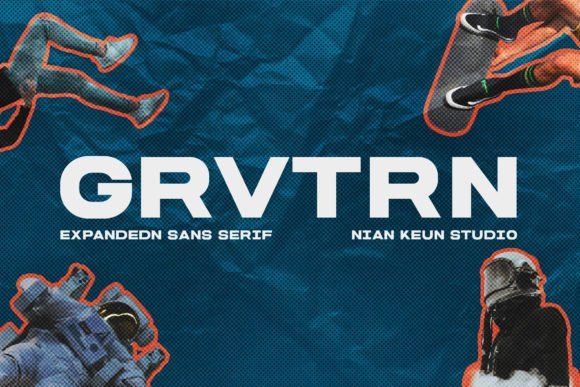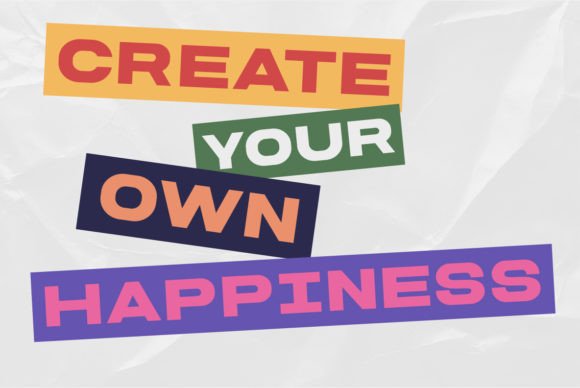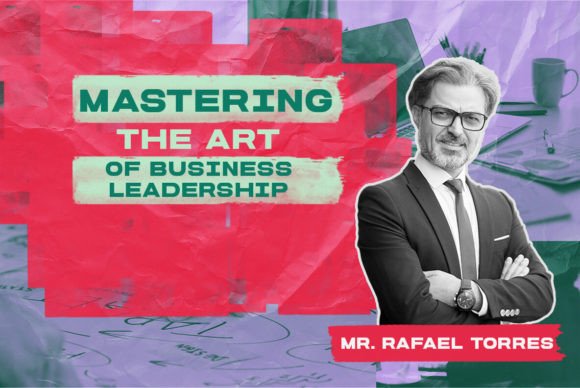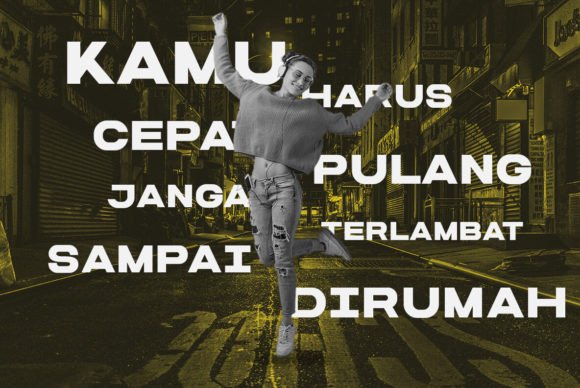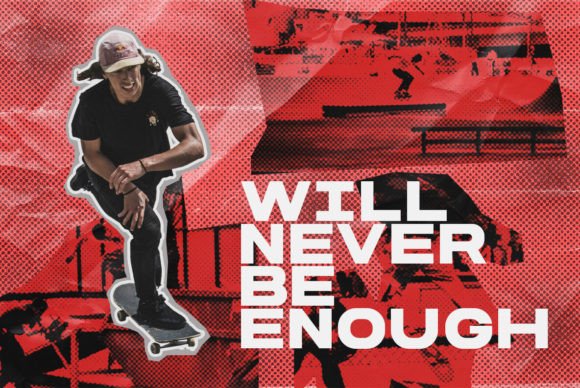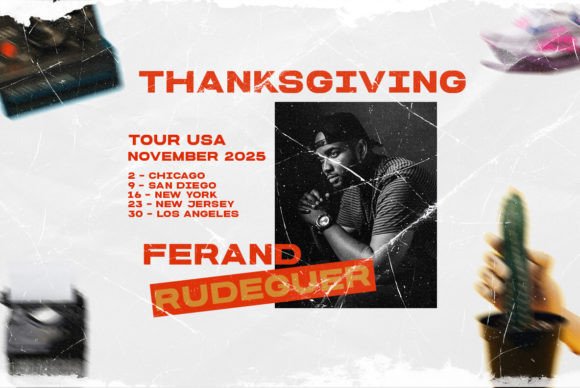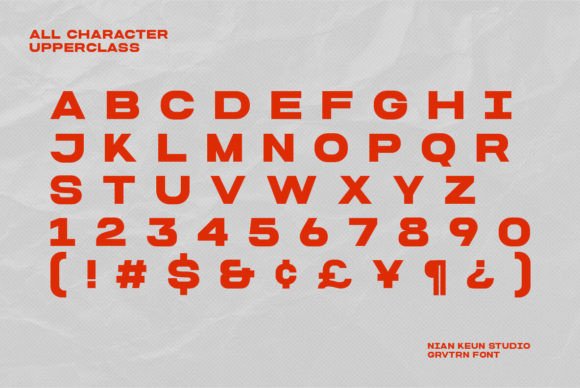
Unlocking Modern Minimalism with the GRVTRN Font
Have you ever found yourself stuck in a creative rut, searching for the perfect font to elevate your design? It’s that moment when you’re scrolling through font libraries, and suddenly, a bold, modern sans serif font catches your eye. This is exactly what happened to designers in 2024 when they stumbled upon GRVTRN Font – a game-changing extension of the sans serif family.
Designed to reflect the current design trends, GRVTRN Font is all about simplicity with a modern edge. Its clean and straightforward style, characterized by large, wide, and thick letterforms, makes it the perfect choice for designers looking to make a bold statement while maintaining a minimalist appeal. Whether you’re working on a branding project or a digital product, GRVTRN Font is an invaluable addition to your design toolkit.
- Unique Characteristics: Grvtrn Font features a distinctive, modern design with a unique blend of geometric and organic elements, making it stand out in various design applications.
Grvtrn Font Review
At first glance, Grvtrn Font appears to be a unique and modern sans-serif typeface. ✨ The font’s geometric shapes and clean lines give it a futuristic feel, making it perfect for tech-related projects or futuristic designs.
One of the strengths of Grvtrn Font is its versatility. ✨ It comes in a wide range of weights, from light to bold, allowing designers to choose the perfect version for their project. Additionally, the font is highly legible, making it easy to read even at small font sizes.
- ⚠️ Limited language support: Grvtrn Font primarily supports Latin-based languages, which may limit its use for projects that require other languages.
- ⚠️ Limited character set: The font’s character set is not as comprehensive as some other typefaces, which may cause issues for designers who need to use special characters or glyphs.
Overall, Grvtrn Font is a solid choice for designers who want a modern and futuristic typeface. While it has some limitations, its versatility and legibility make it a great option for a wide range of projects.
Grvtrn Font is ideal for creative projects that require a bold, eye-catching font. Use it for headings, titles, or quotes to add a touch of sophistication. To get the most out of Grvtrn Font, experiment with different font sizes, colors, and combinations to create a unique look.
Q: What is the character set of the Grvtrn Font?
The Grvtrn Font includes a comprehensive character set that supports multiple languages, including Latin, Cyrillic, and Greek scripts. It also includes a range of punctuation marks, symbols, and diacritics to ensure proper language support.